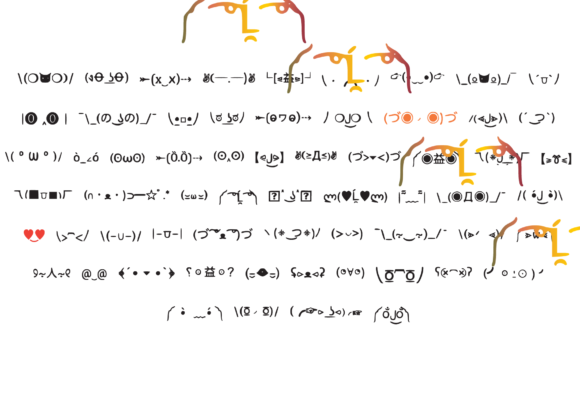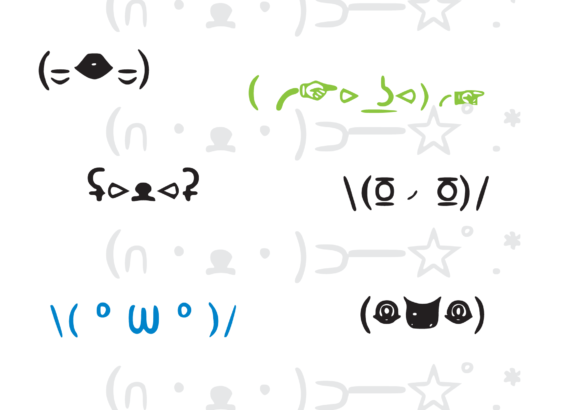
Introduction to Lenny Faces Font
Lenny Faces is a fun and incredibly cool dingbats font.
It will look stunning on any poster flyer or print Use this font for your designs and explore its endless possibilities.
Why Choose Lenny Faces Font?
Lenny Faces Font offers exceptional quality and versatility, making it a valuable addition to your design toolkit. Whether you’re creating for personal projects or commercial use, Lenny Faces Font delivers professional results.